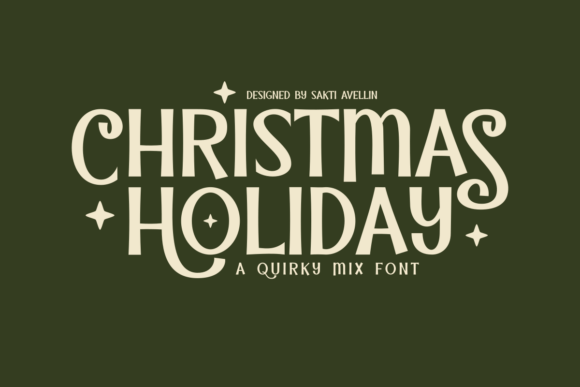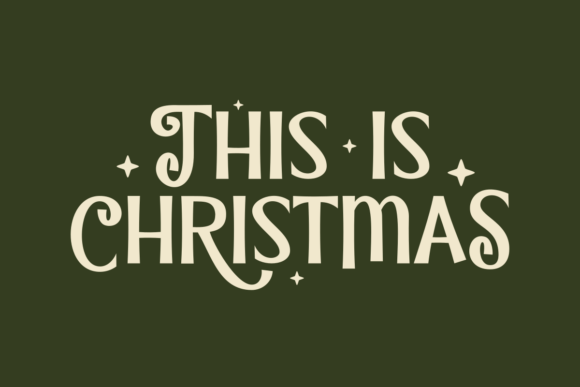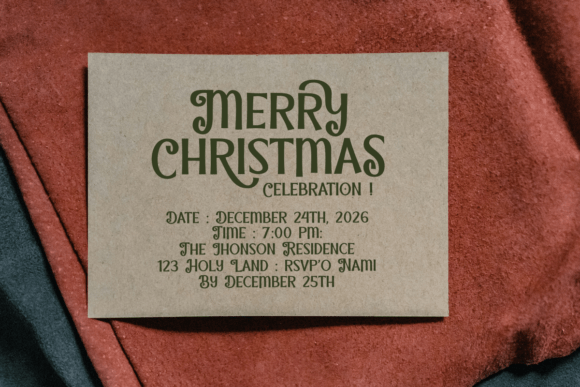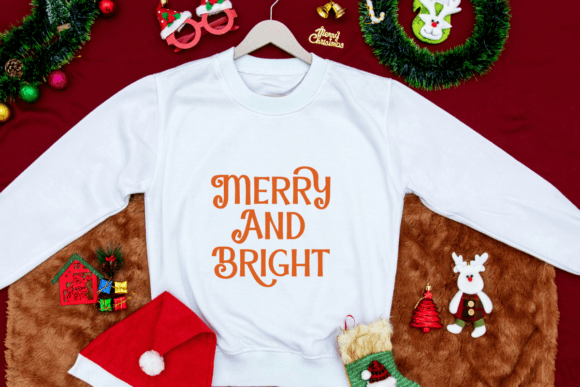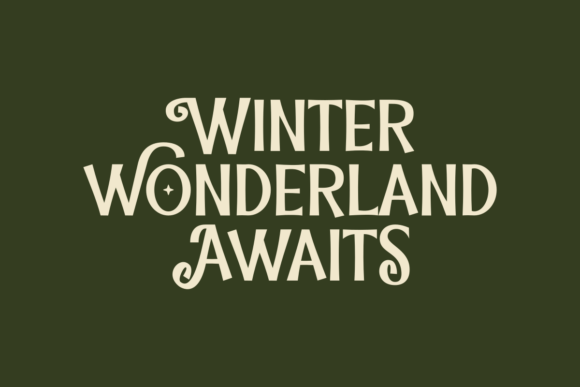
Christmas Holiday Font
Christmas Holiday is a quirky font. This font has a distinctive handwritten style, with soft, artistic curves. The letters have a unique and slightly playful shape, giving a warm, friendly, and festive impression. The letterforms are not stiff, but rather flow elegantly, perfect for holiday themes. There are also small star elements that add a decorative touch, reinforcing the Christmas and holiday feel. “Christmas Holiday” is perfect for Christmas cards, holiday party invitations, posters, product packaging, mugs, t-shirts, tote bags, and much more!